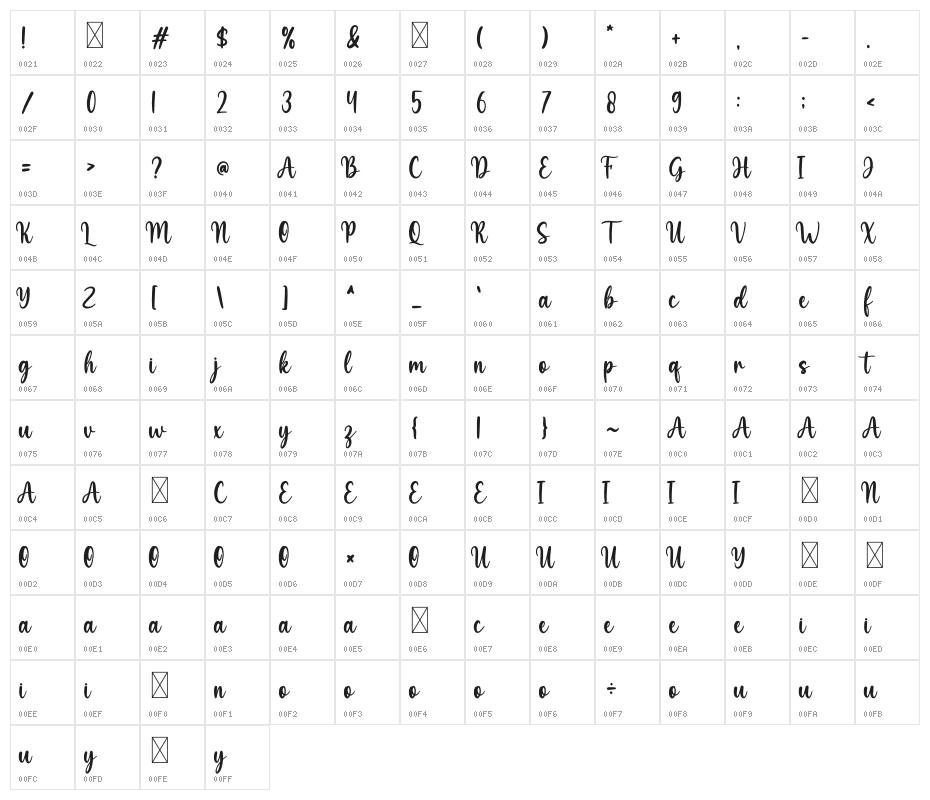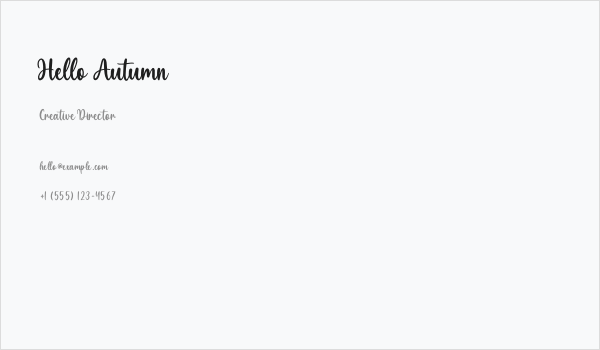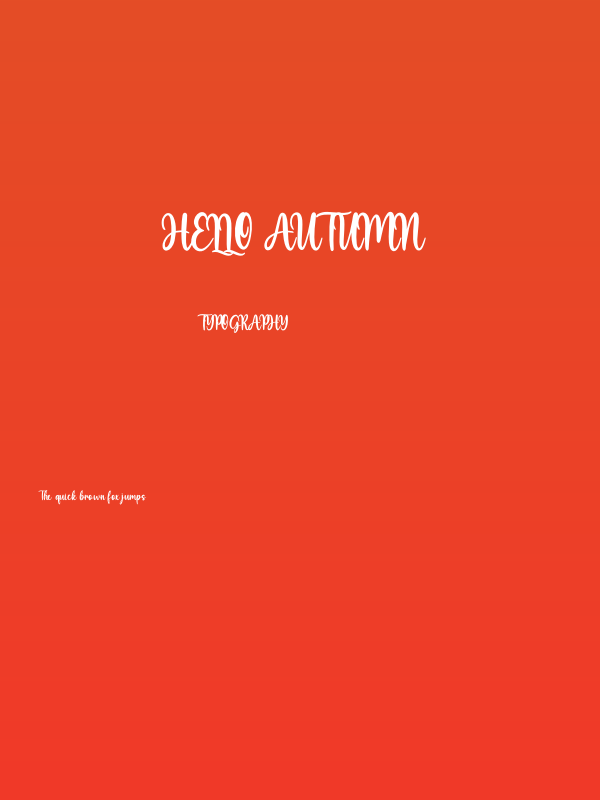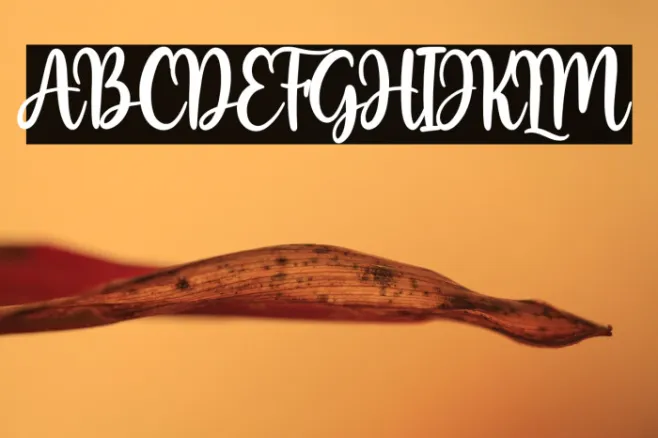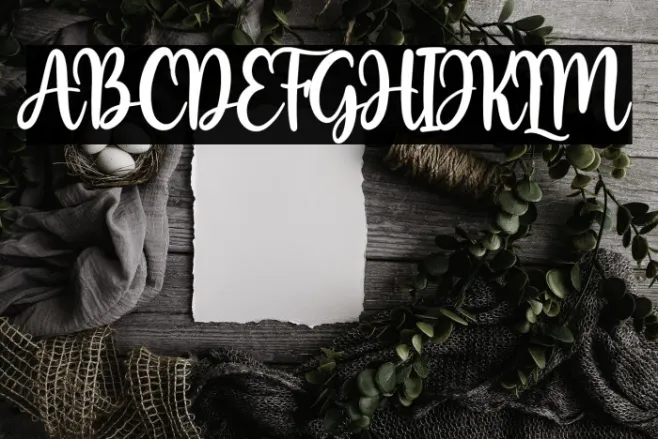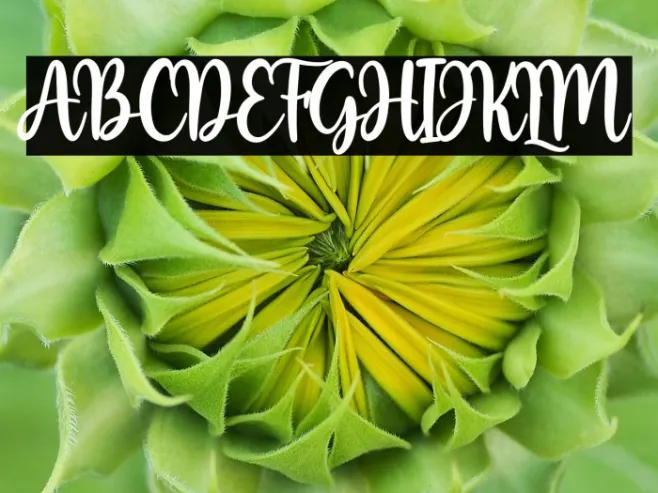
Hello Autumn Font
Hello Autumn Description
This font features a playful and flowing script style, characterized by its smooth, cursive strokes and elegant loops. The uppercase letters are bold and prominent, with a slight slant that adds a dynamic feel. The lowercase letters maintain a consistent flow, enhancing readability while retaining a whimsical charm. Numbers are clear and well-defined, matching the overall aesthetic. Special characters are creatively integrated, maintaining the font's cohesive style. This font exudes a sense of warmth and friendliness, making it ideal for projects that require a personal touch.